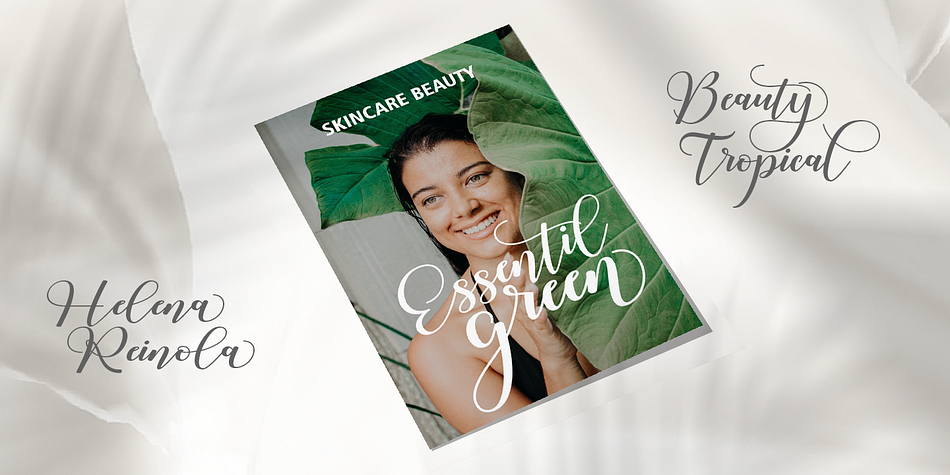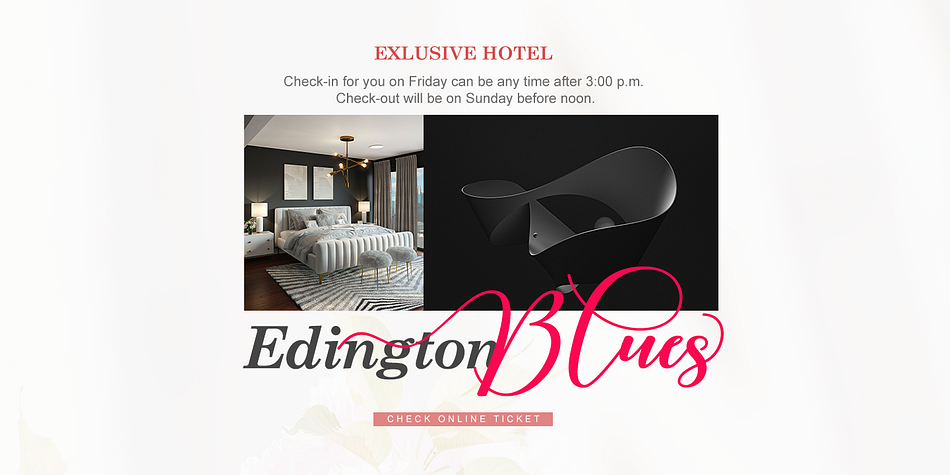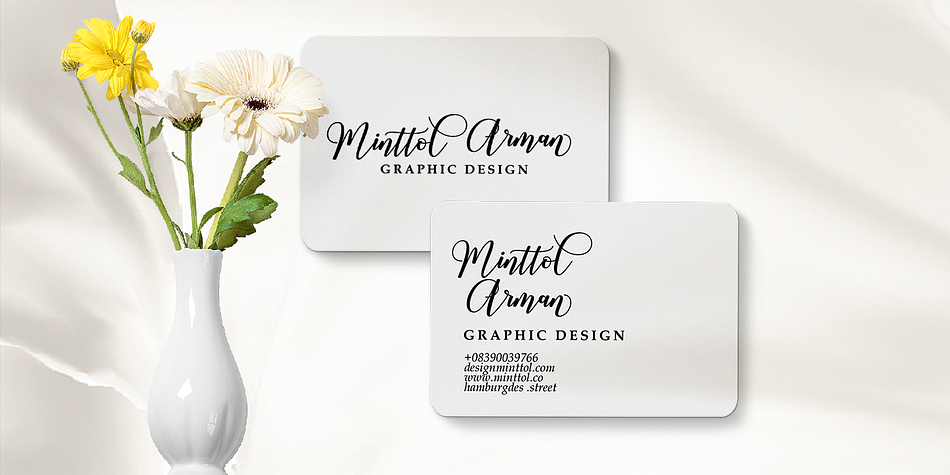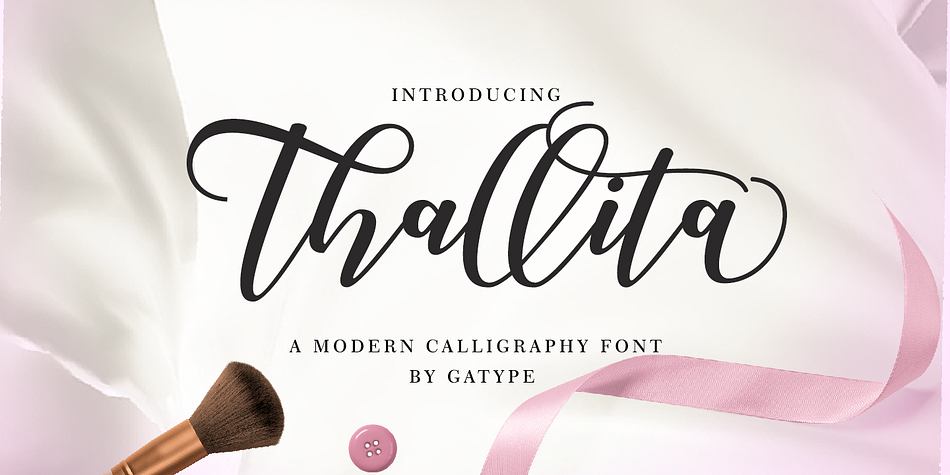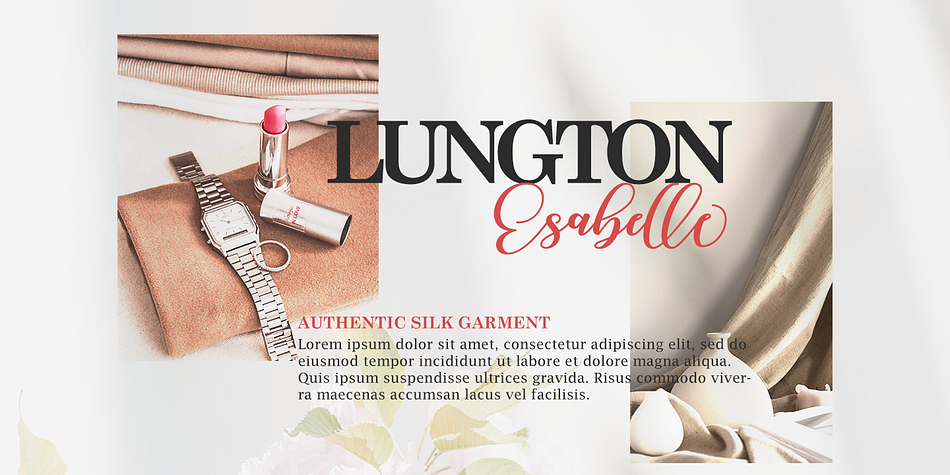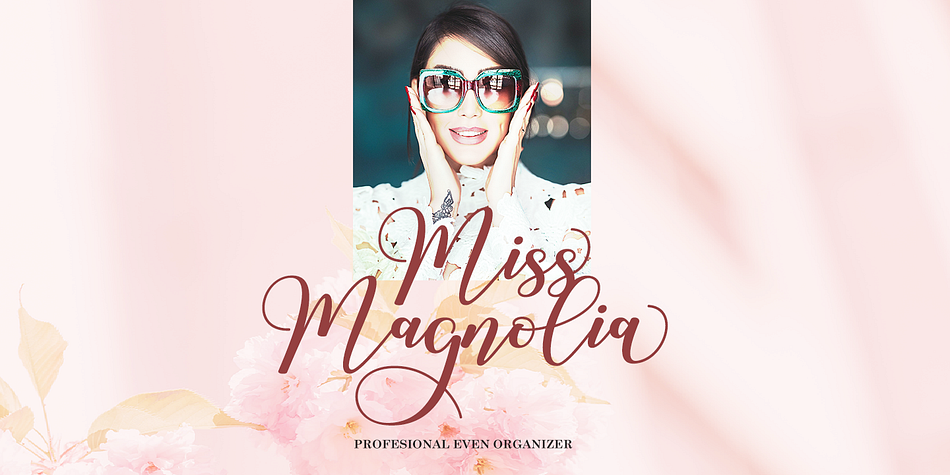
Thallita
Thallita is a modern calligraphy font family published by Gatype.
Thallita is sophisticated and modern, the perfect font for invitations such as weddings, dinner parties, private shows, and more. The natural handwriting appearance makes your invitation look more personal, making the recipient feel special.
Thallita is also good as a business card. You can use it for advertising art, design, wedding planning, florist and fashion business. Fonts make even the simplest business card designs stylish.